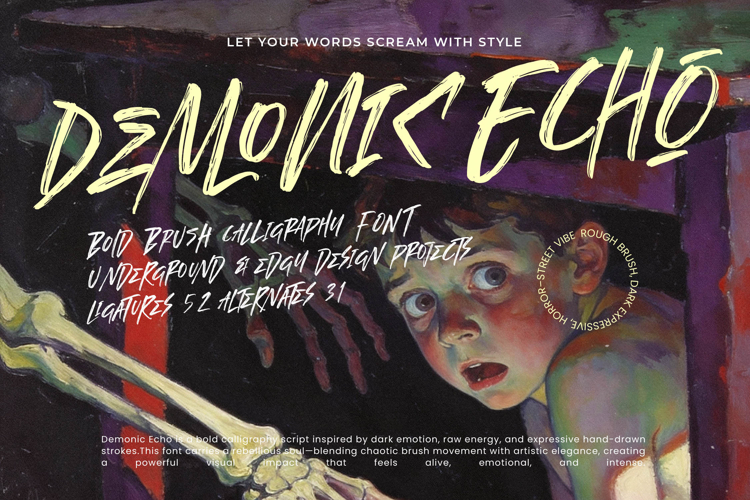
Demonic Echo - Bold Brush Calligraphy Font
Demonic Echo - Bold Brush Calligraphy Font is a dramatically expressive typeface, born from intense, hand-drawn brush strokes that convey immediate energy and emotion. Its heavy weight and dynamic flow create a powerful, chaotic energy, making it ideal for projects that demand attention and refuse to be ignored. This font embodies a rebellious soul and a distinctly street-level grunge aesthetic, providing designers with an unapologetically impactful visual solution.